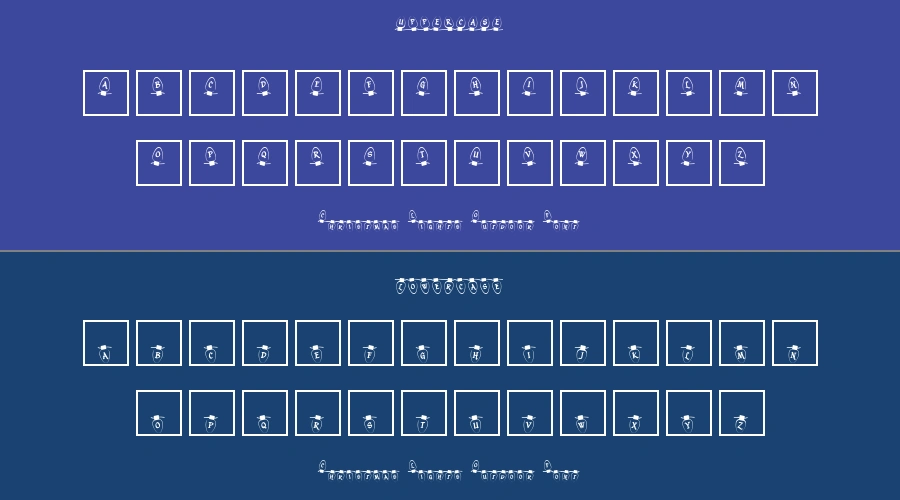
About Christmas Lights Outdoor Font
Christmas Lights Outdoor Font stands out for its distinctive combination of circular bowls and consistency. Ideal for marketing materials, it provides the functionality and technical mastery that professional projects demand. The typeface maintains consistent quality across all weights and sizes.
Key features include refined fluid connections and practical oldstyle figures, enhancing typographic expression. In page numbers applications, Christmas Lights Outdoor Font demonstrates exceptional small text clarity. The proportion and design heritage contribute to its distinctive character and professional appeal.